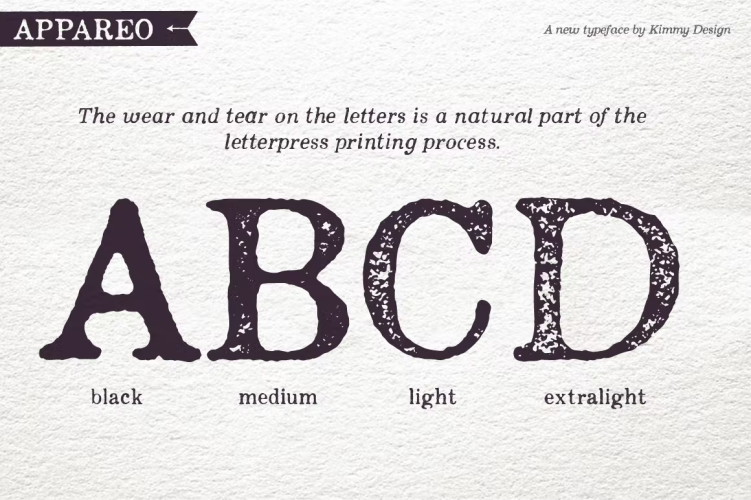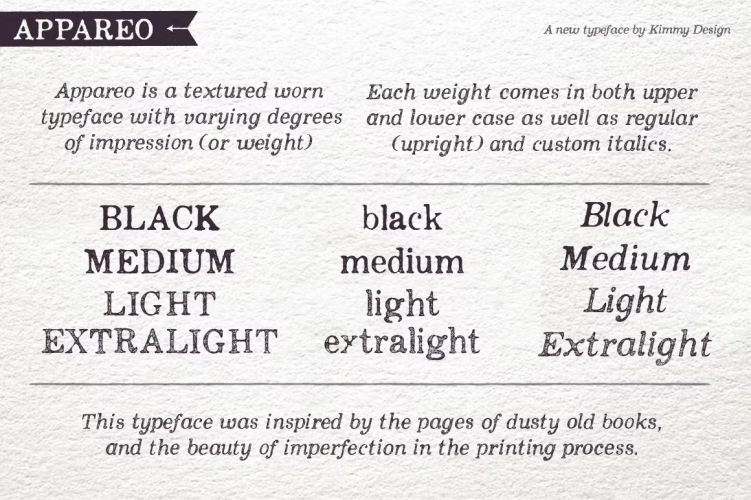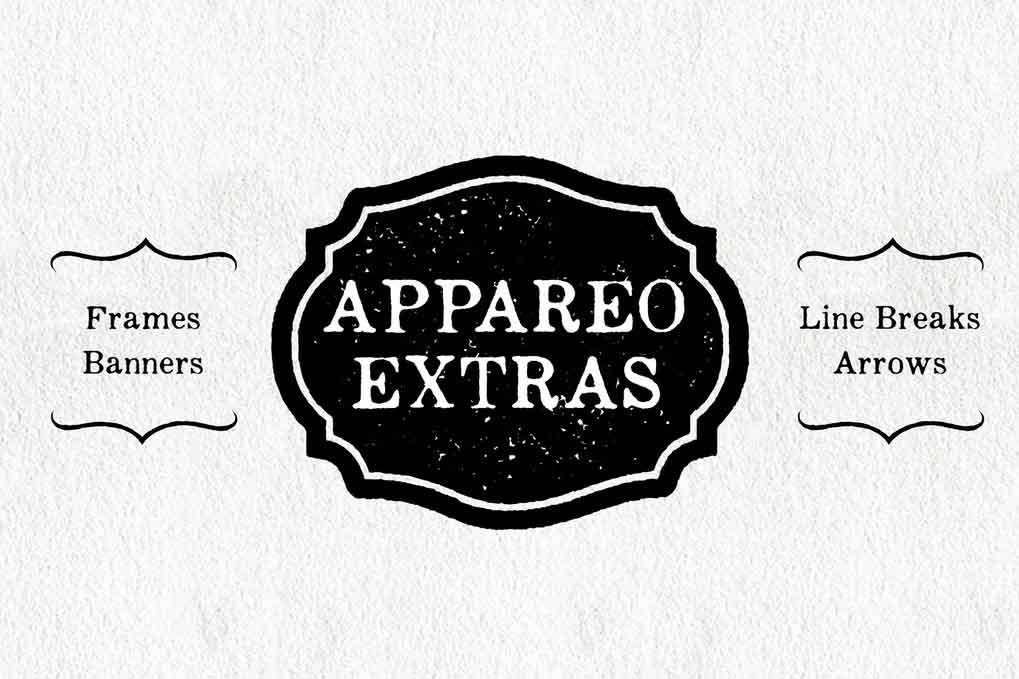
Appareo Extras Font
Inspired by vintage books and the pages within, Appareo is an imperfect, worn serif font that comes in three weights. Each weight has a varying degree of distress, from Black, in which the press and ink fully set into the page, to Medium, Light and Extralight, where the texture is heaviest. Each weight also has a custom italics version of each character.
To fully give the authentic feel of worn pages of dusty books, Appareo has 5 character variations.
Appareo also has a set of graphic elements, including frame, banners, borders, arrows, etc in the same style and texture.
Appareo Extras Font is a Decorative Fonts font that brings a professional and versatile look to your projects. Inspired by vintage books and the pages within, Appareo is an imperfect, worn serif font that comes in three weights.